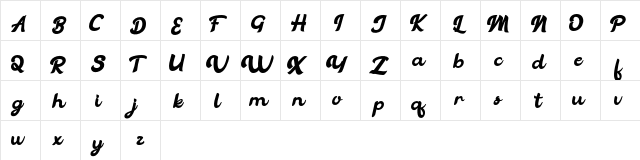
Vintage Legends FREE Regular
Design Context for Vintage Legends FREE Typeface
Vintage Legends FREE has the warm character of retro typography — evoking diners, record sleeves, and the golden age of print advertising.
Perfect for vintage-inspired branding, retro packaging, nostalgia campaigns, and period-accurate editorial design.
Font Pairing: Combine Vintage Legends FREE with a simple slab or neutral sans — period-accurate companions reinforce the vintage feel without competing for attention.
Pro Tip: Use Vintage Legends FREE for headlines and pull quotes rather than body copy — its personality is best appreciated in short, focused bursts.